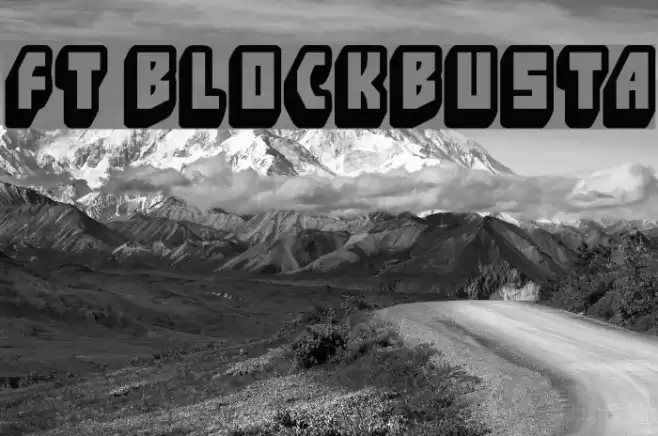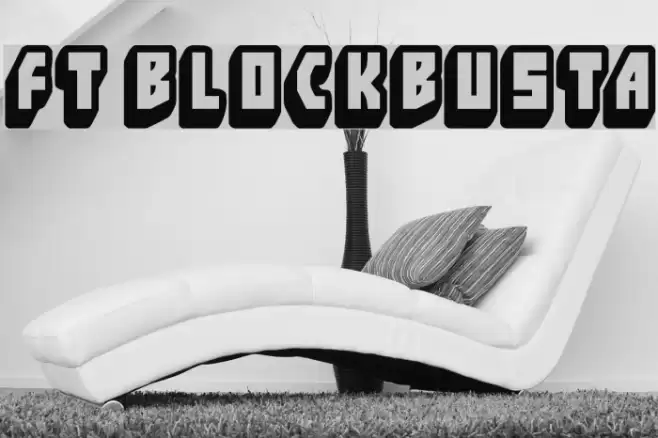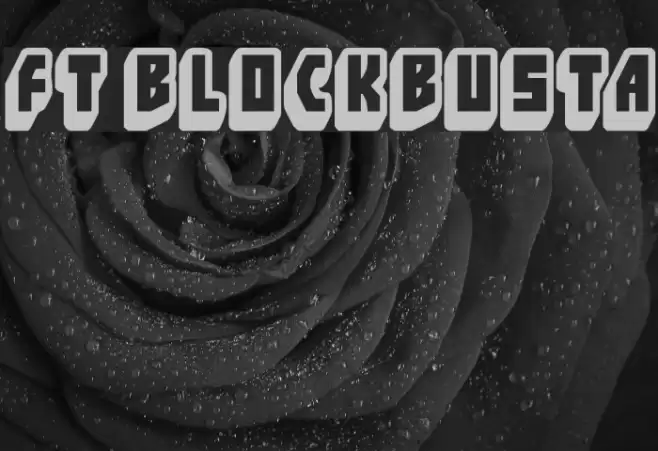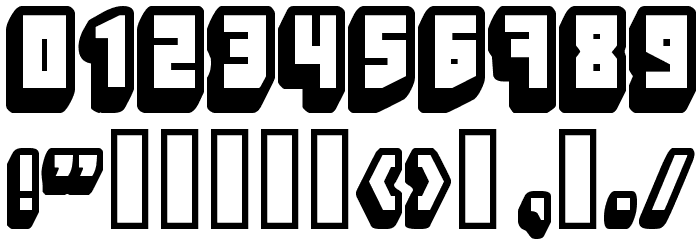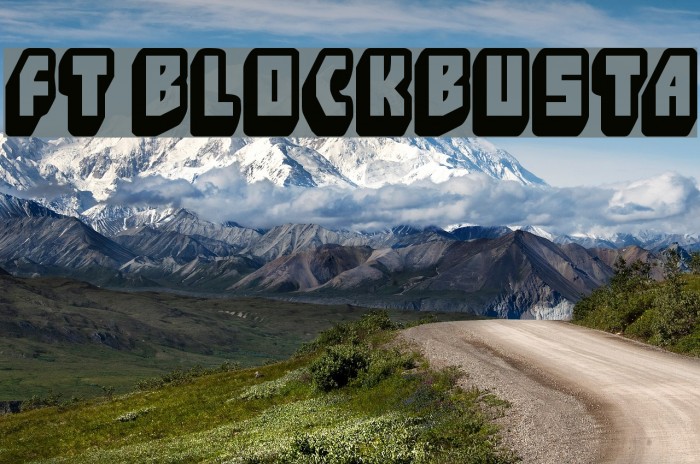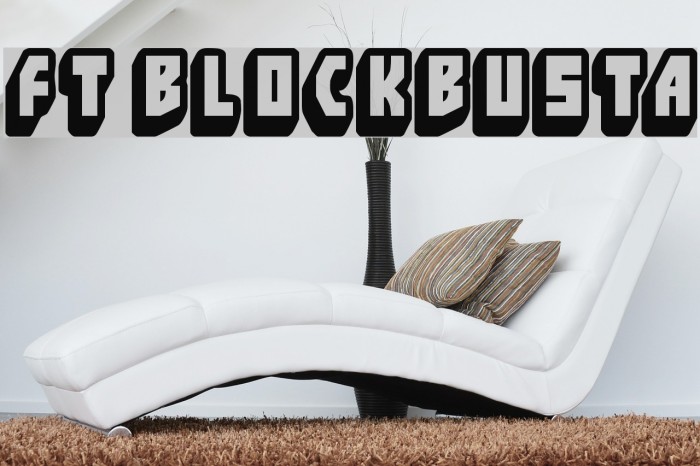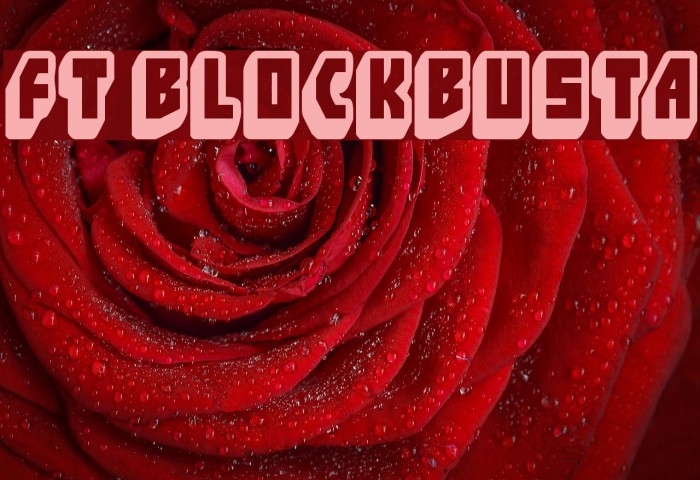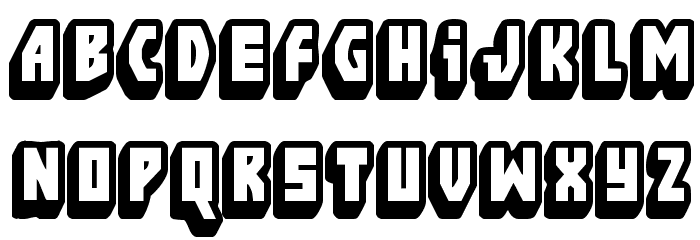
FT Blockbusta Font
FT Blockbusta Description
This bold, three-dimensional font features a striking block design with a shadow effect that gives it a sense of depth and presence. The characters are uppercase and lowercase, with numerals and a selection of special characters. Each letter is crafted with thick lines and sharp angles, creating a powerful and impactful look. The font's geometric style is consistent throughout, with uniformity in the width and height of each character. The shadow effect adds a dynamic element, making it suitable for eye-catching designs. Its boldness and unique style make it ideal for projects that require a strong visual impact.
A bold, three-dimensional block font with a shadow effect for impactful designs from Uncategorized fonts.
- Proposed Projects: Ideal for posters, headlines, logos, and any design requiring a strong visual impact.